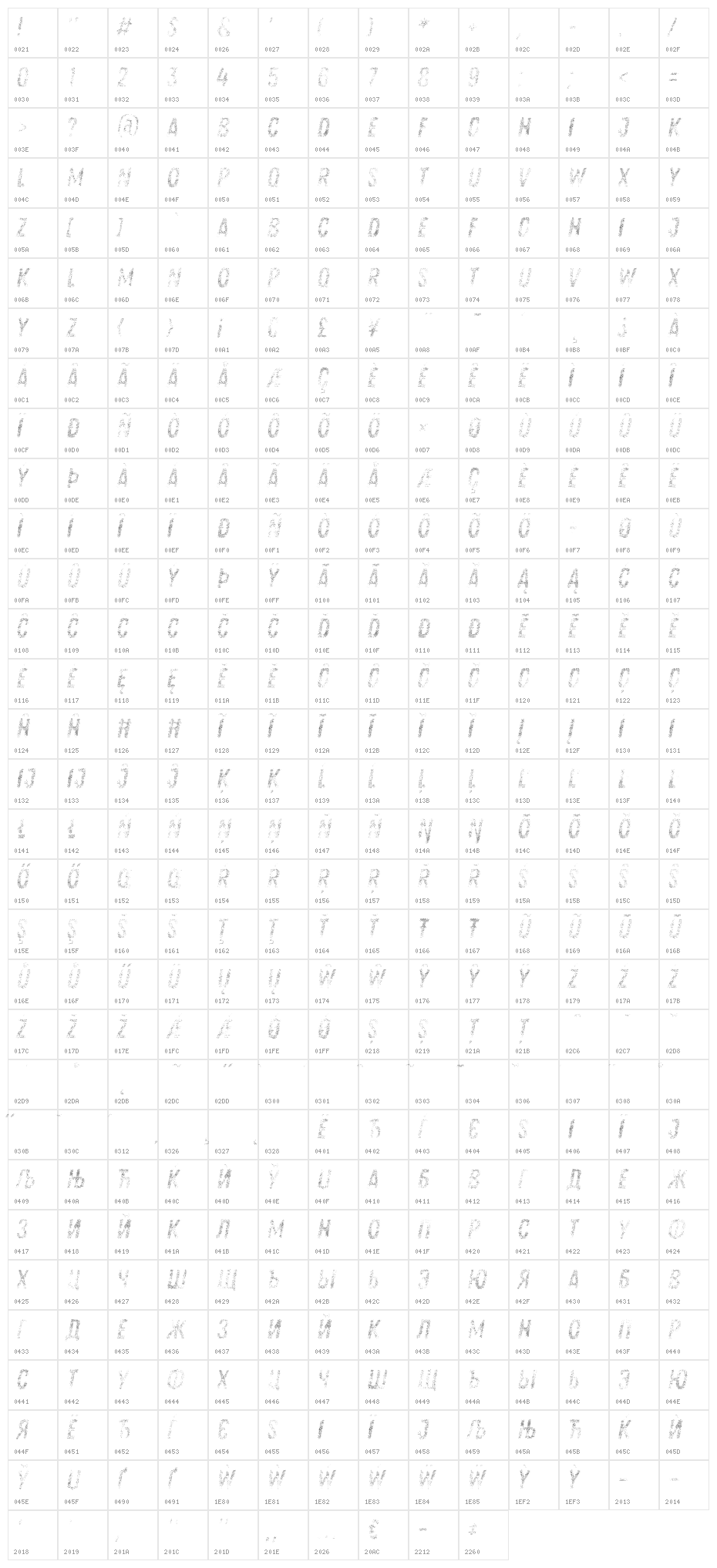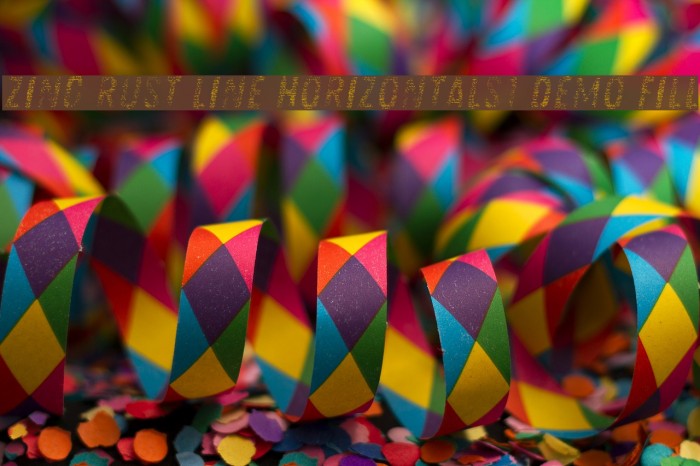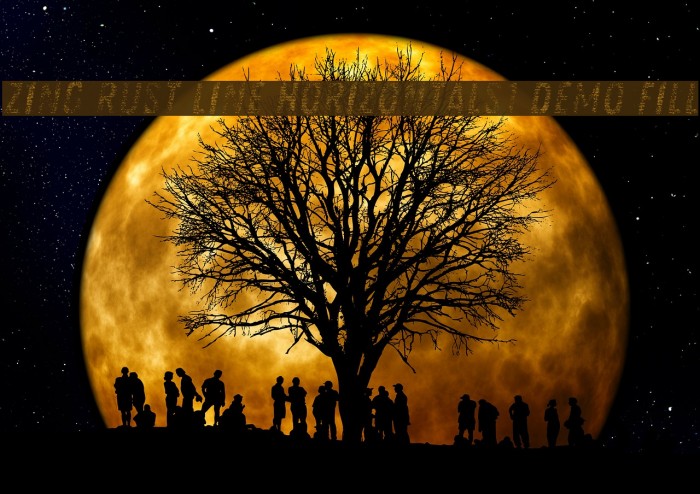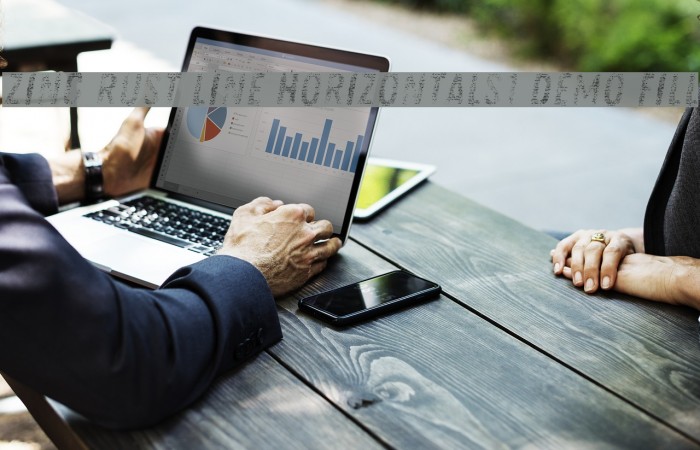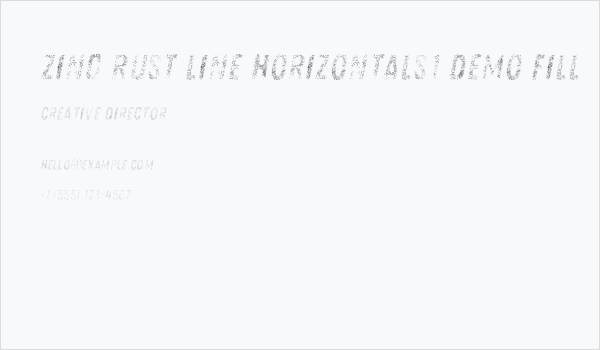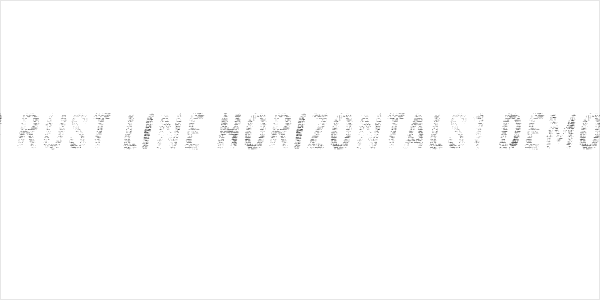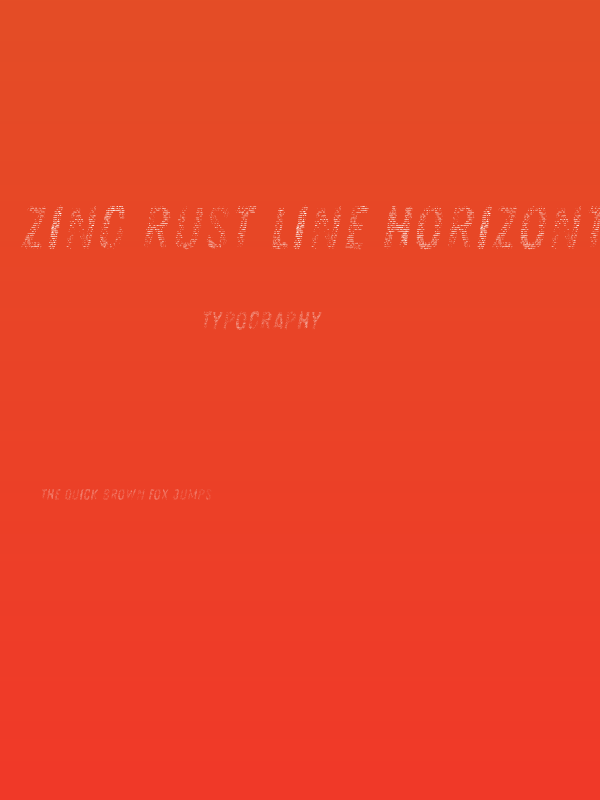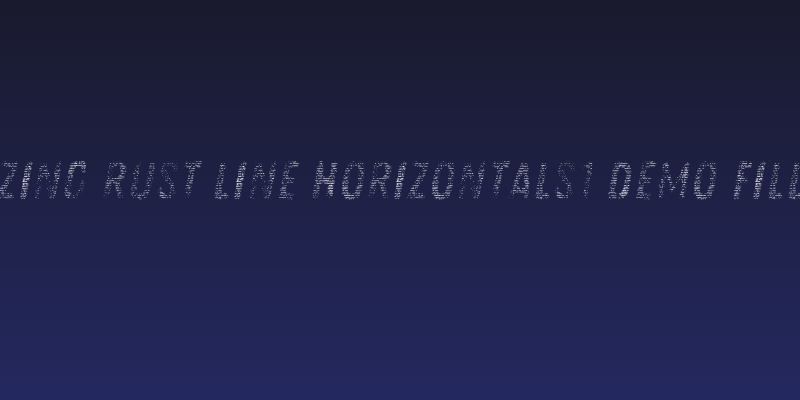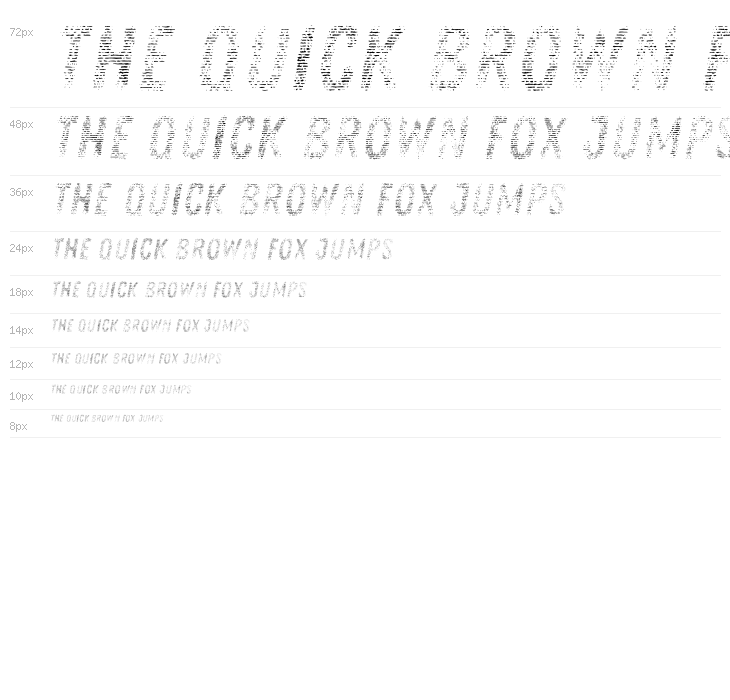
Zing Rust Line Horizontals1 Demo Fill Font
Zing Rust Line Horizontals1 Demo Fill Description
This font features a unique design with horizontal lines running through each character, creating a textured and dynamic appearance. The uppercase and lowercase letters maintain a consistent style, with a slight slant that adds a sense of motion. The numerals and special characters are crafted with the same horizontal line effect, ensuring uniformity across all glyphs. The overall look is modern and edgy, making it suitable for projects that require a distinctive and eye-catching typeface.
Proposed ProjectsIdeal for branding, posters, and digital artwork where a bold and unique style is desired.